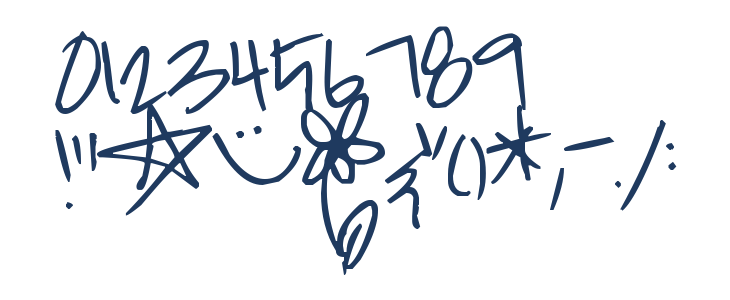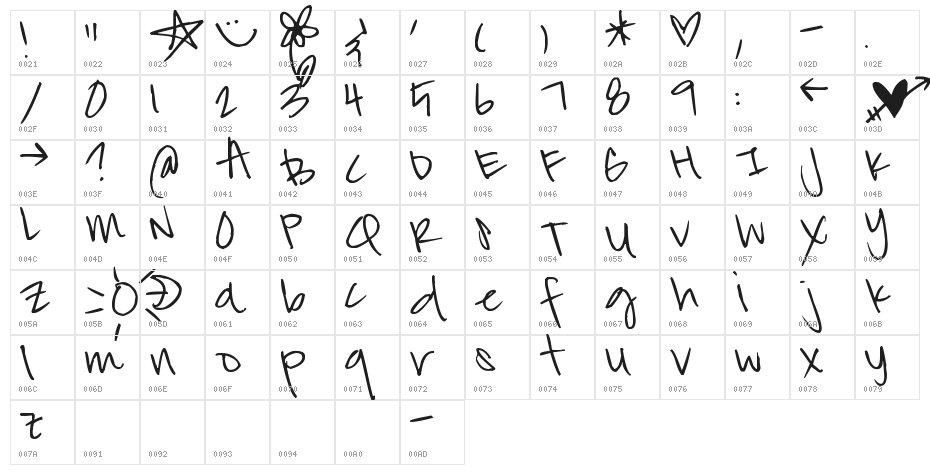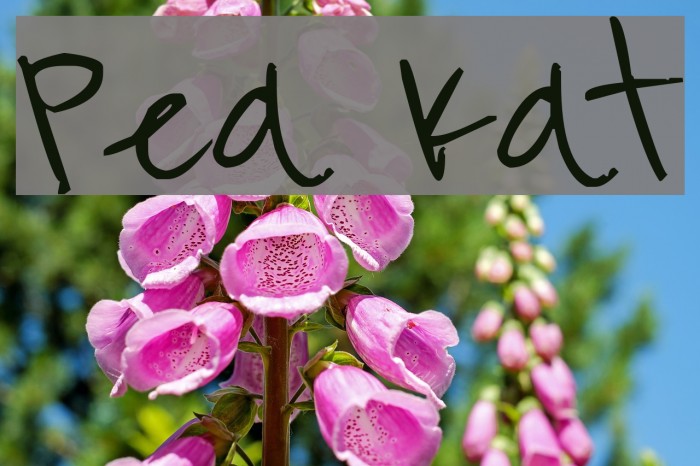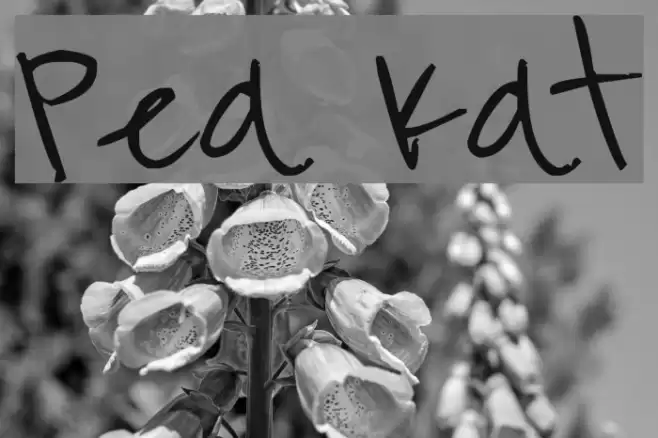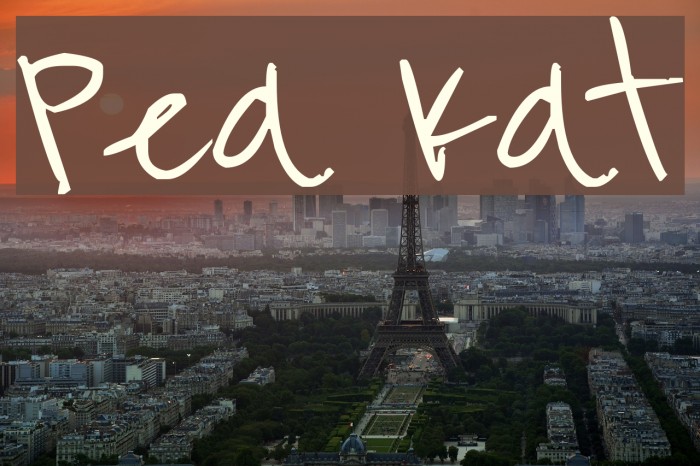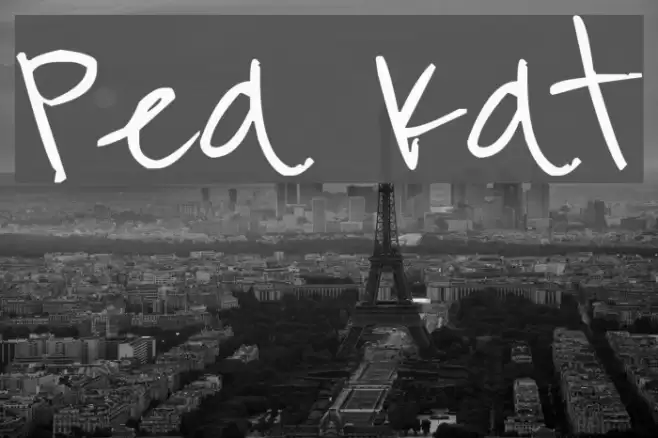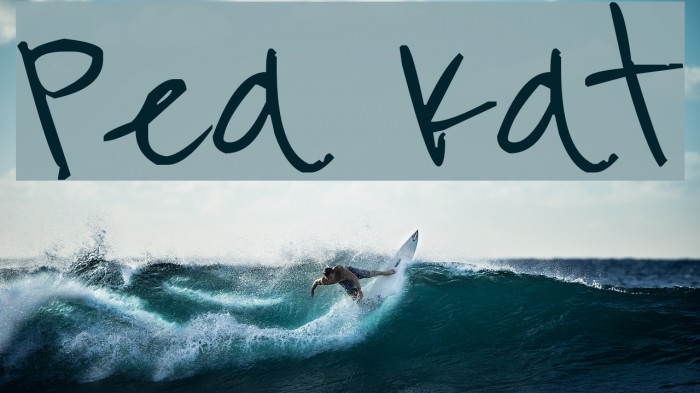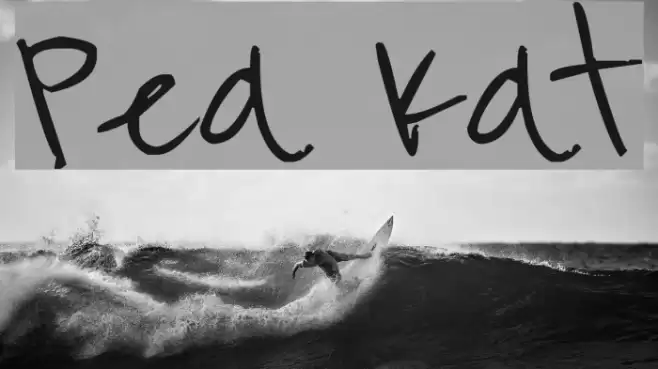
Pea Kat Font
Pea Kat Description
This font exudes a playful and casual handwritten style, characterized by its loose and flowing strokes. The letters vary in size and angle, giving it an informal and dynamic appearance. The uppercase and lowercase letters maintain a consistent style, with rounded edges and a slightly uneven baseline that adds to its charm. Numbers and special characters follow the same whimsical design, making it suitable for creative and fun projects. The overall look is approachable and friendly, perfect for adding a personal touch to any design.
| Proposed Projects | Ideal for greeting cards, children's books, personal blogs, and informal branding. |